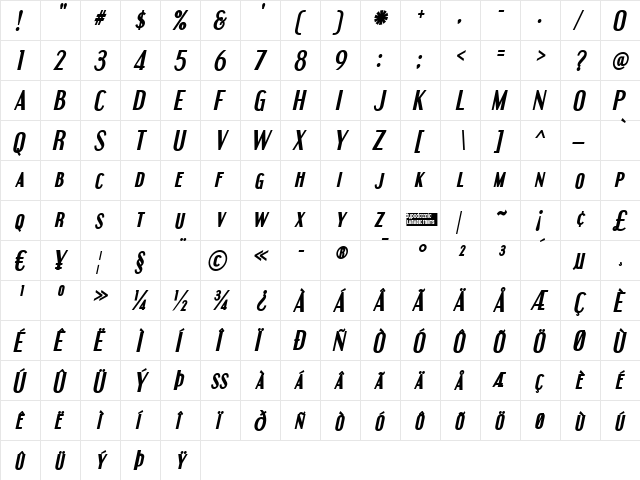
Engebrechtre Bold Italic Font Preview
Design Context for Engebrechtre Typeface
Engebrechtre offers clean, dependable letterforms without strong stylistic allegiance, making it a practical choice for designers who need flexibility. The slanted form adds forward momentum and visual energy. The heavy weight commands attention and anchors typographic hierarchies.
Pro Tip: Try Engebrechtre for annotation and caption copy alongside an upright companion — the contrast in angle creates a dynamic but ordered typographic system.